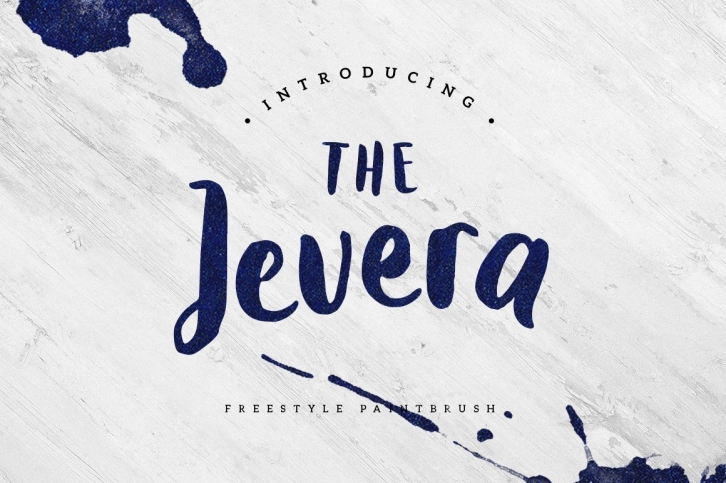
The Jevera is brush font type. The font suitable for playful with ink or grunge also the font can combinate modern and vintage. The font have a standard ligatures and stylistic alternates. So this works well on short words or logo of a good brand for t-shirts, logos, labels, posters, and others can also write a sentence to make the design more interesting content, stylish and modern.
Featured The Jevera :
- Standard Ligatures
- Discretionary Ligatures